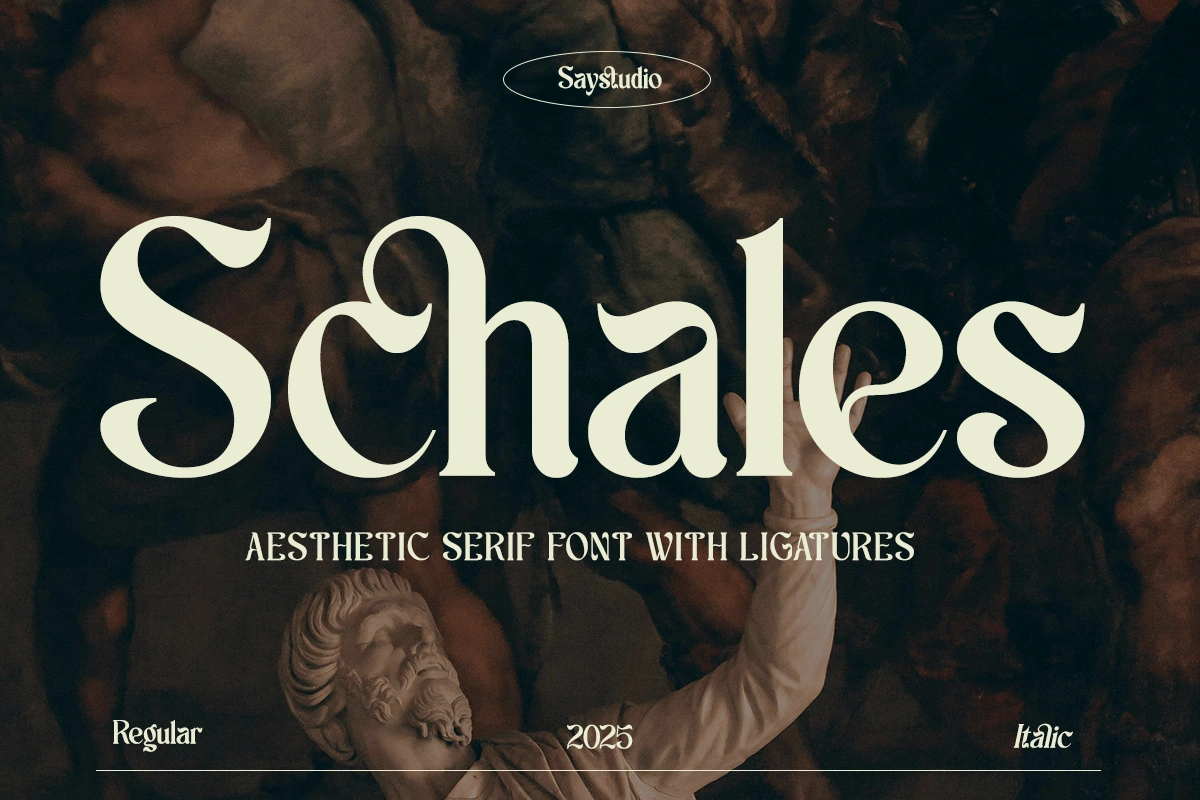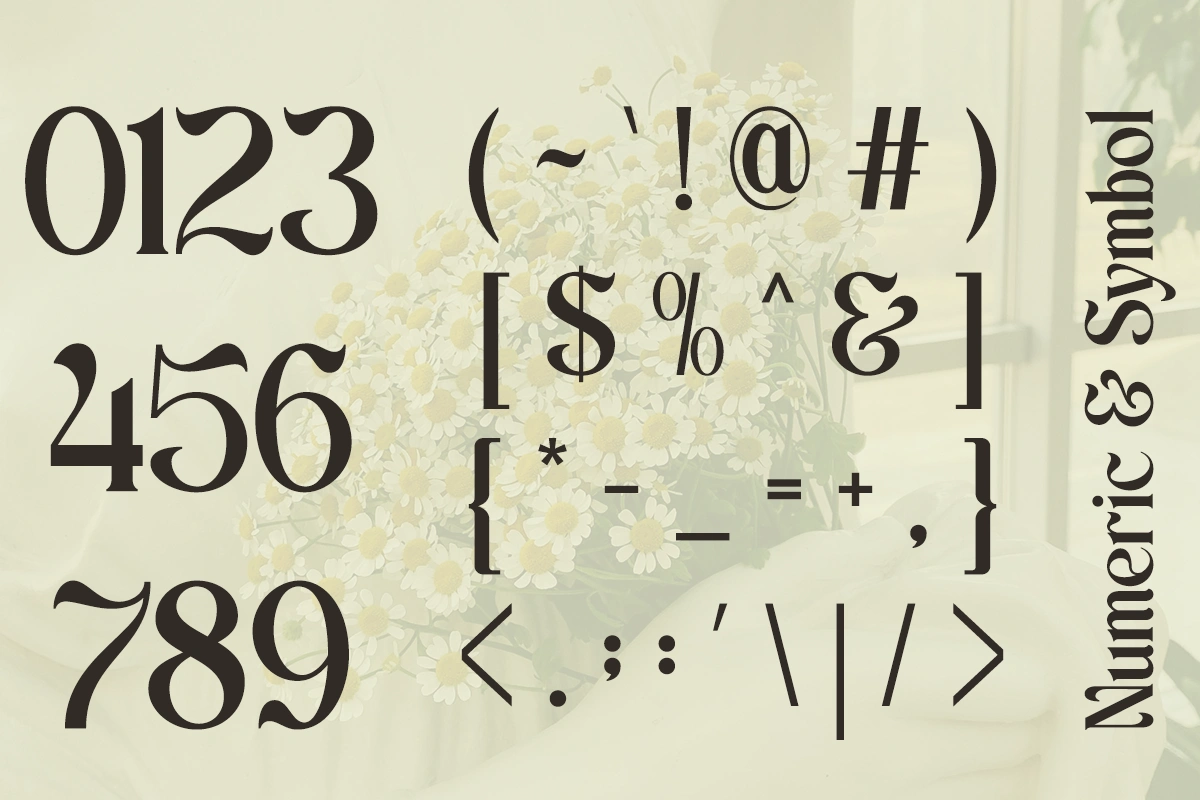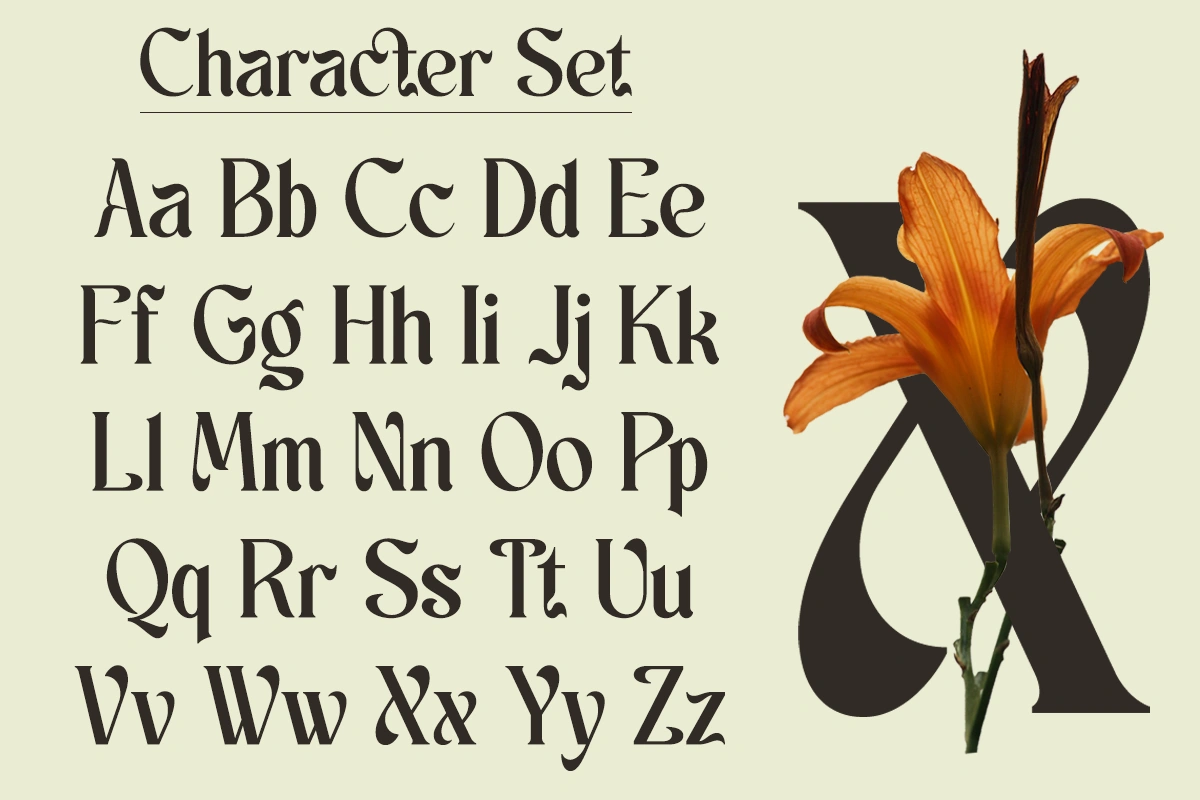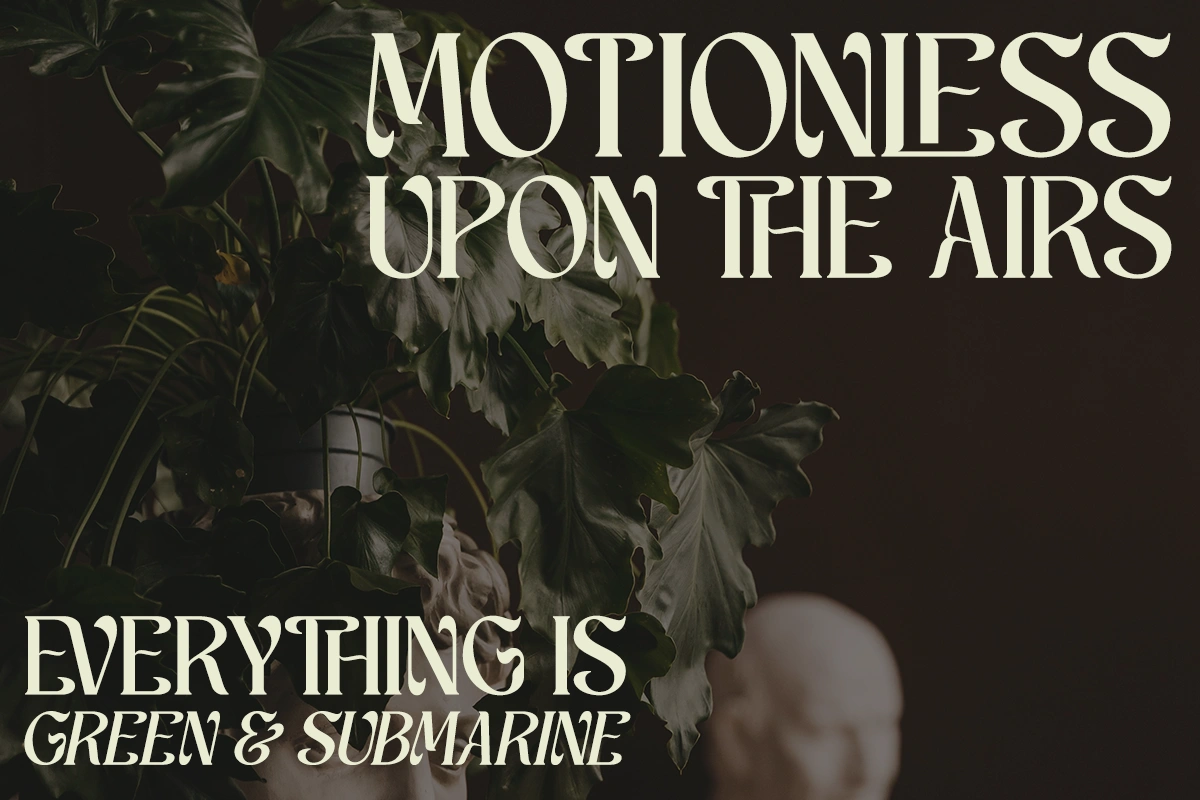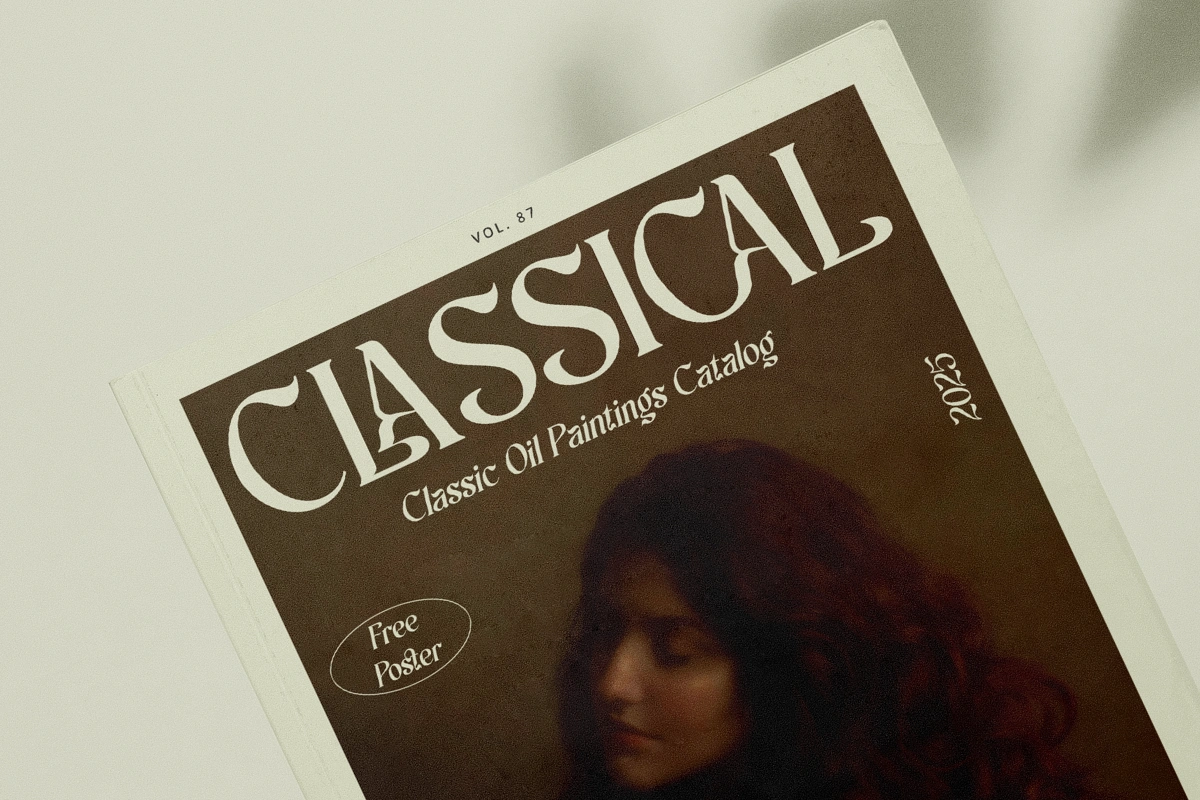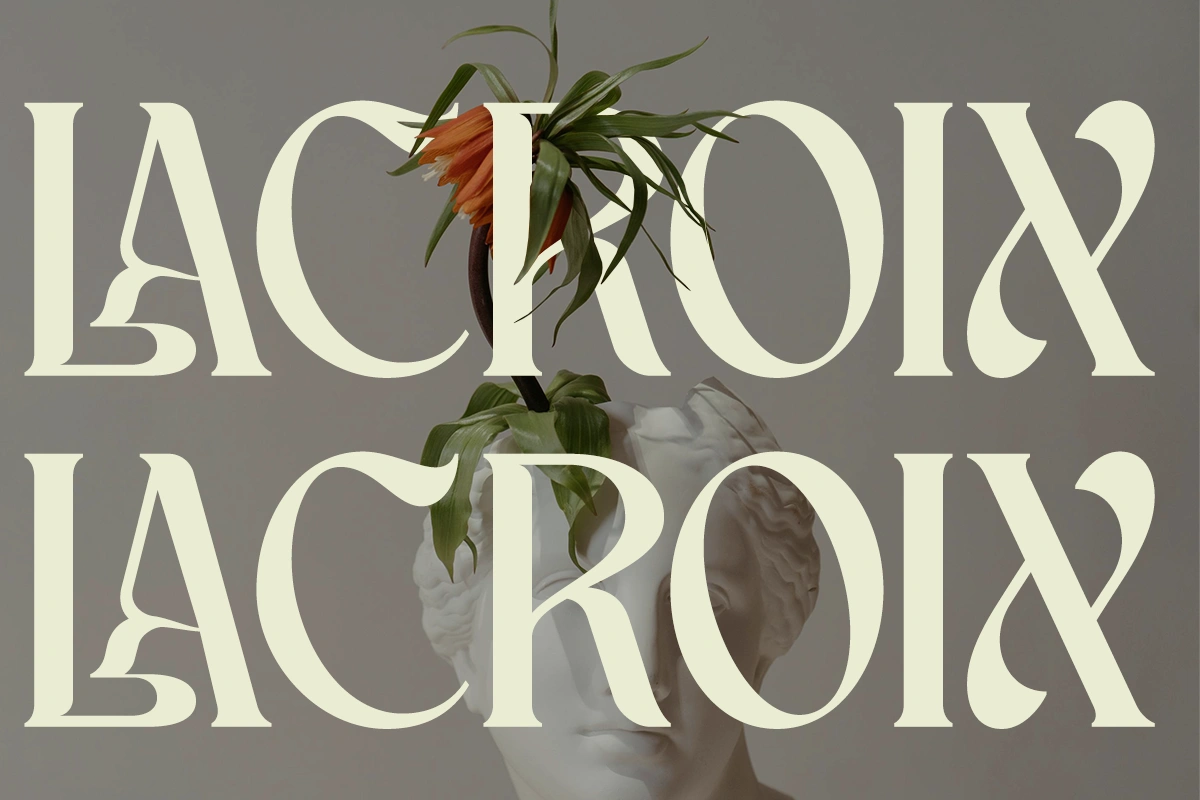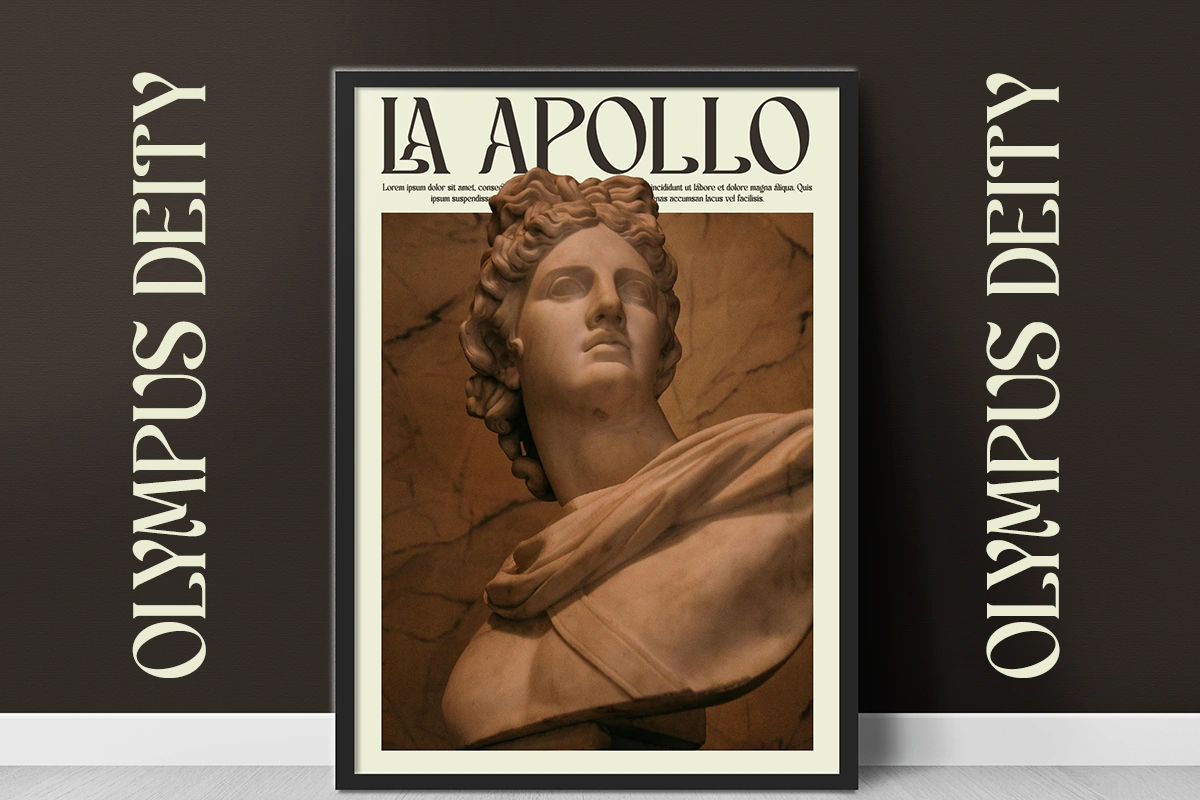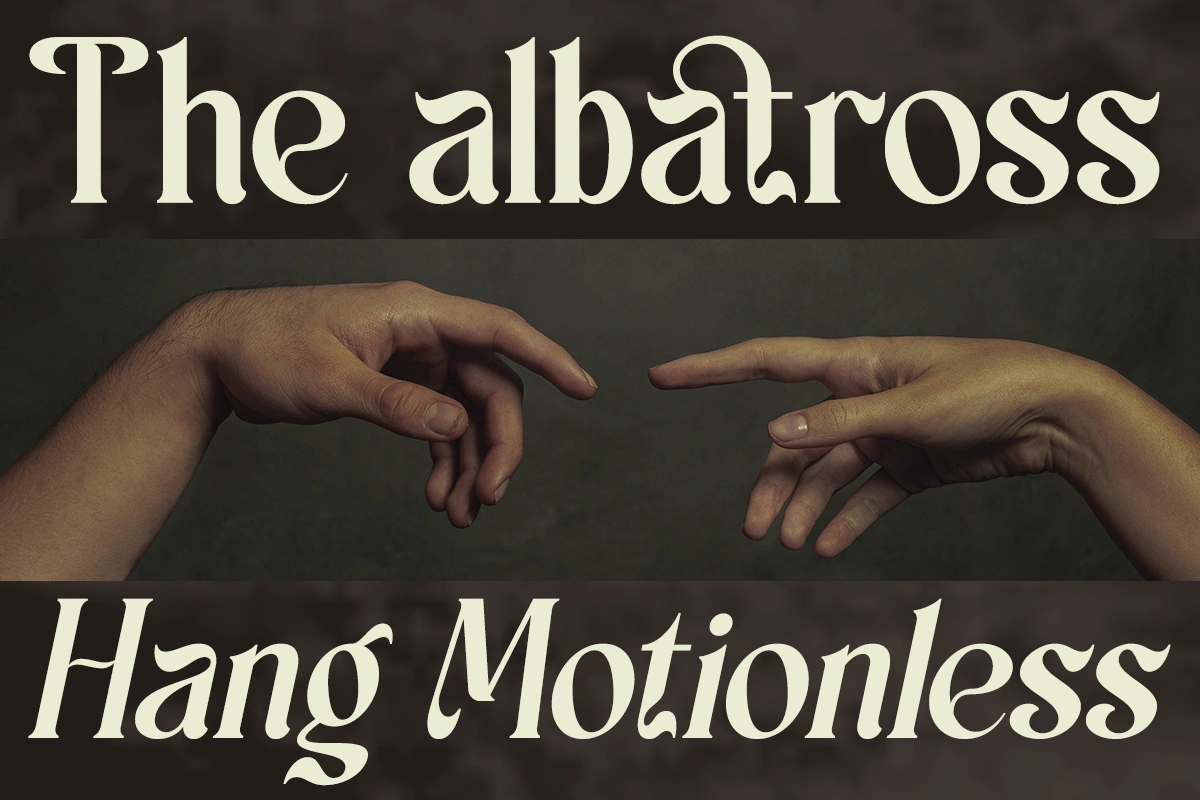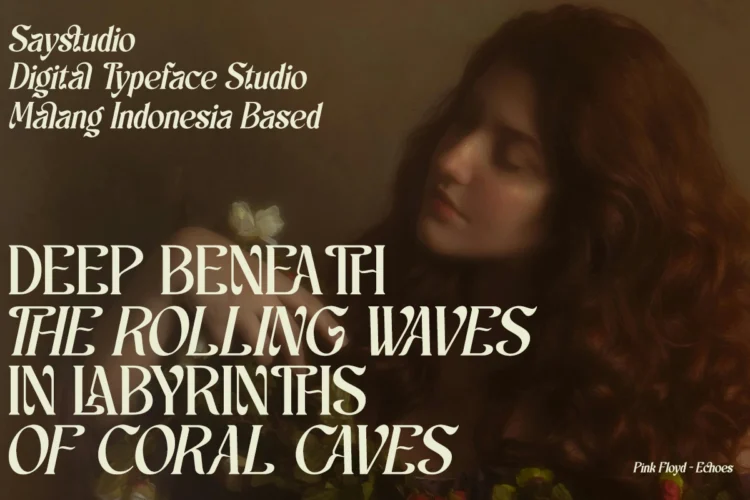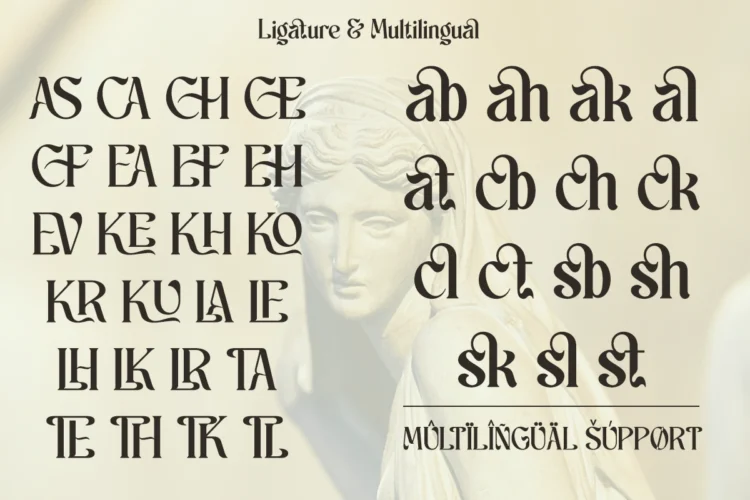
Schales – Serif Font
Schales typeface is an aesthetic serif font that blends classical elegance with modern artistry, making it a striking choice for sophisticated design projects. Its letterforms are defined by graceful curves, sharp serifs, and refined stroke contrasts that create a sense of balance and movement on the page. The inclusion of unique ligatures enhances its expressive tone, giving typography a fluid, handcrafted feel that elevates any layout. With both regular and italic styles, Schales adapts seamlessly to editorial spreads, branding, packaging, and digital media, offering versatility without losing its distinctive charm. Perfect for designers who want to combine timeless sophistication with creative flair, Schales font ensures every word is not only read but remembered.